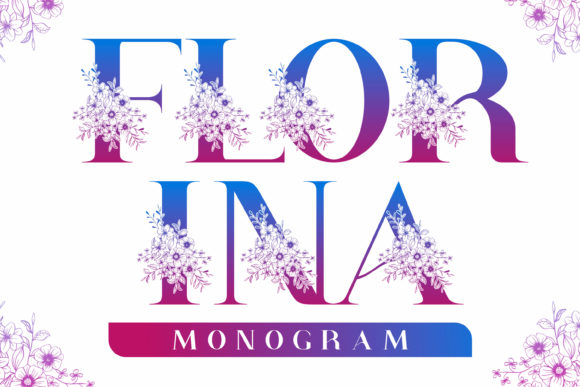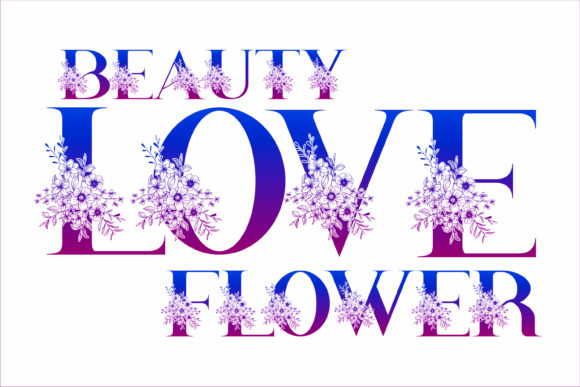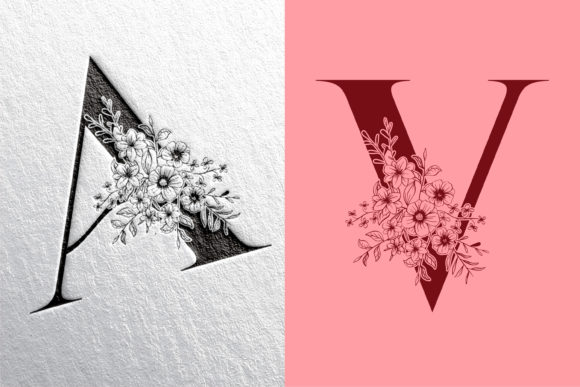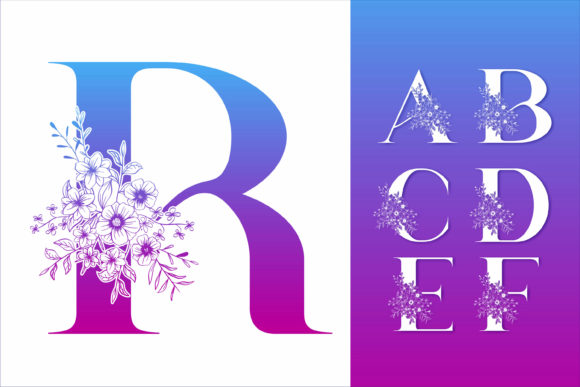
Florin Font
About the Florin Font
Experience the unique personality of Florin Font, a font designed for impact. Florin is a playful, floral decorative font that comes in both regular and outline styles. With its colorful gradient styling and embedded flower illustrations, Florin is perfect for eye-catching headers, children’s projects, seasonal greeting cards, and branding with a youthful twist.
Florin’s playful energy makes it ideal for projects targeting a young audience, such as children’s books, playful branding for food products or toys, and vibrant marketing materials. Its decorative style also works well for short, impactful headlines or as a strong visual element in packaging design. However, its highly decorative nature makes it unsuitable for body text or UI elements where readability is paramount. Avoid using it for lengthy paragraphs or in situations requiring clear, concise information.
Pairing Florin effectively requires a contrasting typeface to balance its whimsical style. A clean sans-serif like Open Sans or Lato would provide a solid foundation for supporting text, offering a modern counterpoint to Florin’s ornate details. For a more elegant approach, consider pairing it with a delicate serif typeface such as Playfair Display.
Florin’s overall personality is best described as cheerful and whimsical. Its bold, decorative forms create a sense of fun and festivity, making it a strong choice for brands wanting to project youthfulness, creativity, and a touch of lightheartedness.